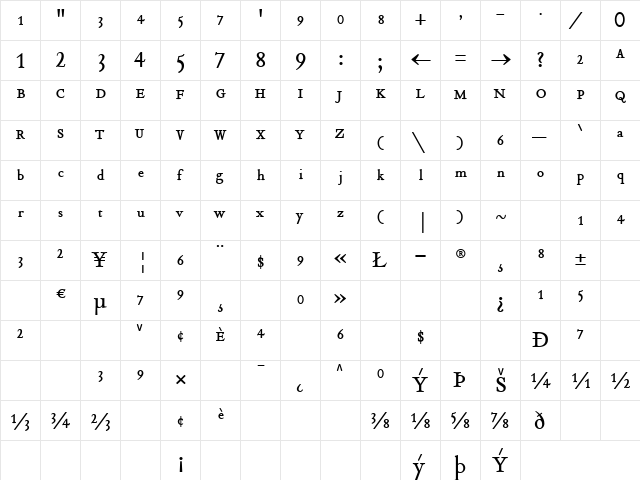
Tribute RomanOrdinals
Tribute takes a measured approach to typography — its balanced proportions and neutral character make it a reliable workhorse for both digital and print work.